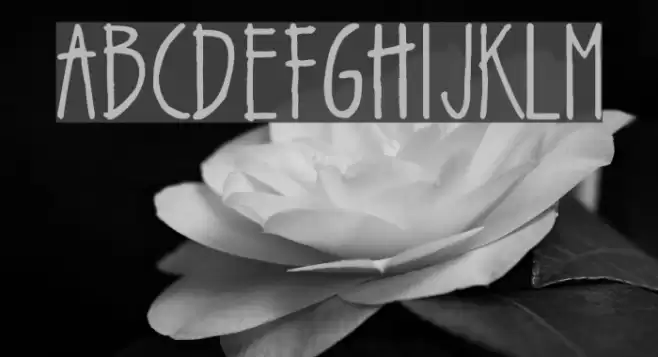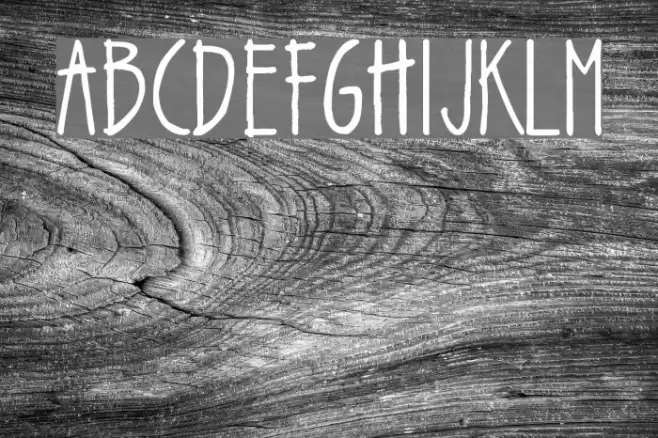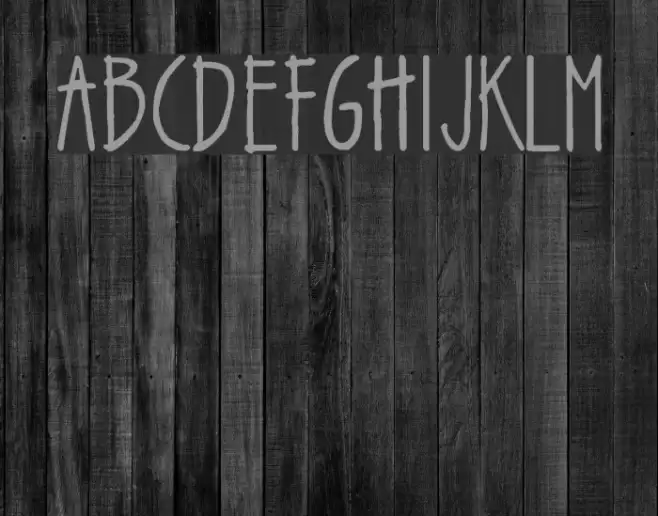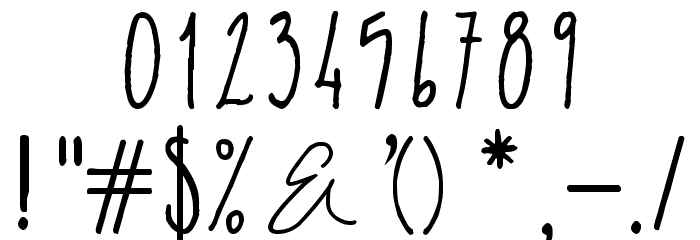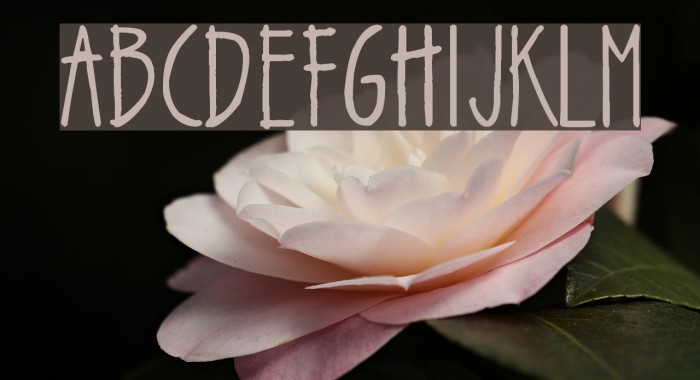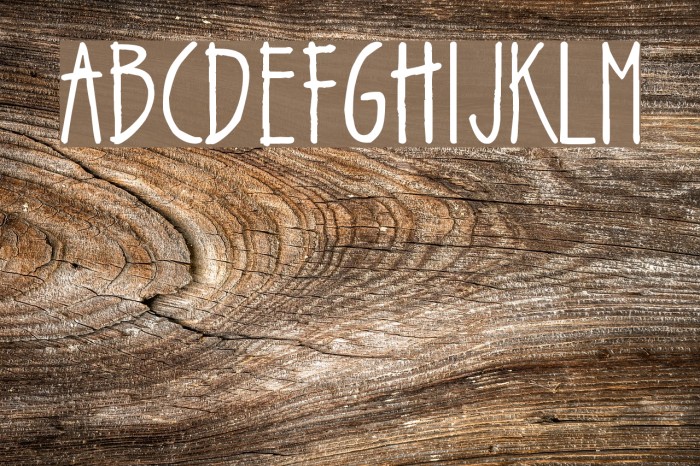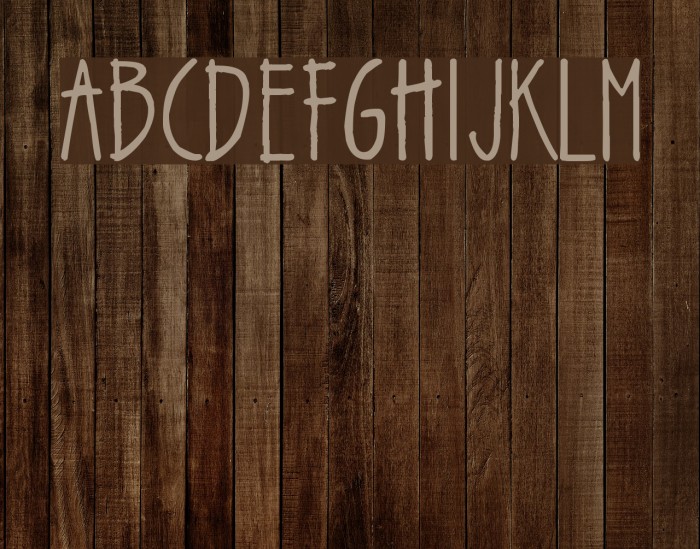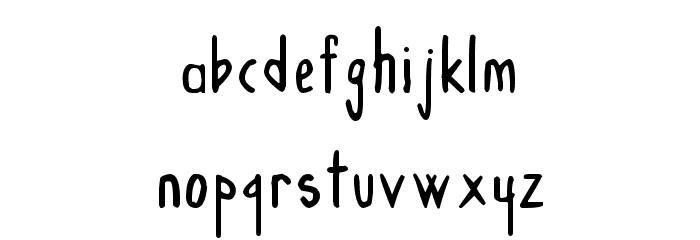
zsarchankian Font
zsarchankian Description
This font features a playful and casual handwritten style, characterized by its uneven strokes and slightly irregular letterforms. The uppercase letters are tall and narrow, giving a sense of height and elegance, while the lowercase letters maintain a consistent flow with rounded edges. The numbers are distinct and easy to read, matching the overall informal aesthetic. Special characters are creatively designed, adding to the font's charm. The font's organic feel makes it suitable for projects that require a personal touch.
A playful handwritten font with tall, narrow uppercase letters and rounded lowercase forms from Uncategorized fonts.
- Proposed Projects: Ideal for greeting cards, invitations, children's books, and personal branding projects.
- Overall Style: Casual
- Use Case: Logos, Invitations, Greeting Cards